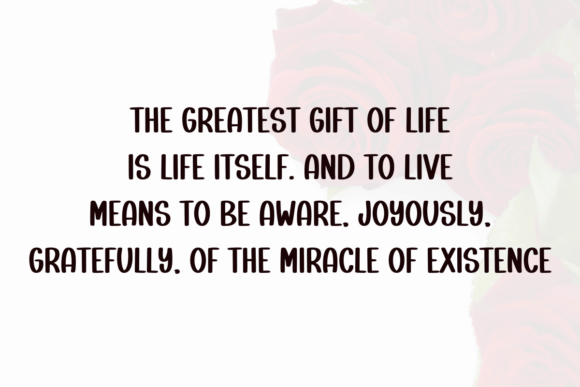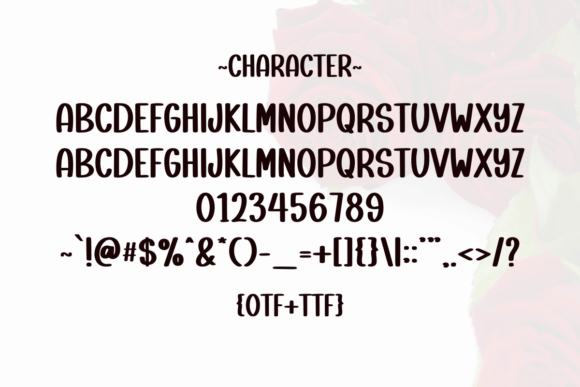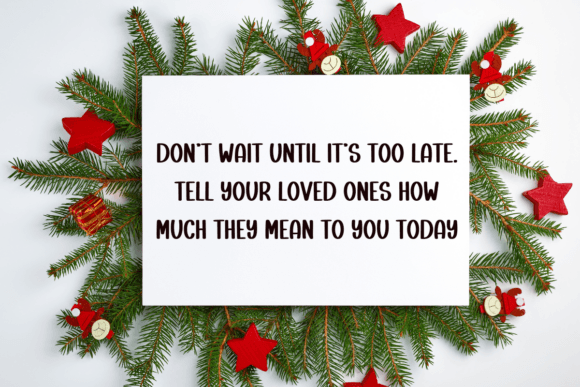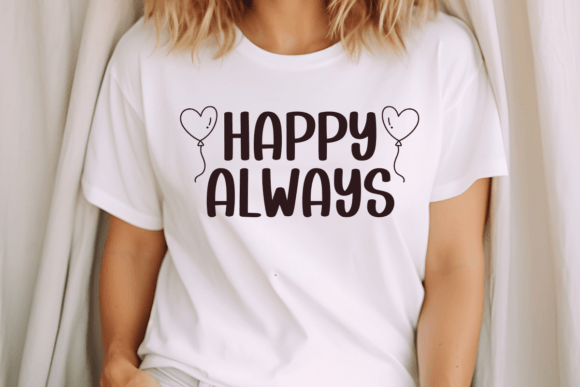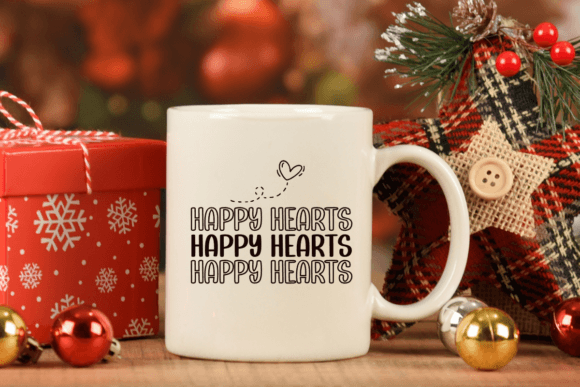
Introduction to Cherish Moments Font
Cherish Moments is a fun and playful sans-serif font with a cute and charming style.
Its natural strokes and touches give it a lively and whimsical feel Itโs great for journals, KDP projects, notebooks, memos, planners, teaching materials, Cricut designs, silhouettes, sublimation, key chains, womenโs clothing, and other creative projects.
Key Features of Cherish Moments Font
Why Choose Cherish Moments Font?